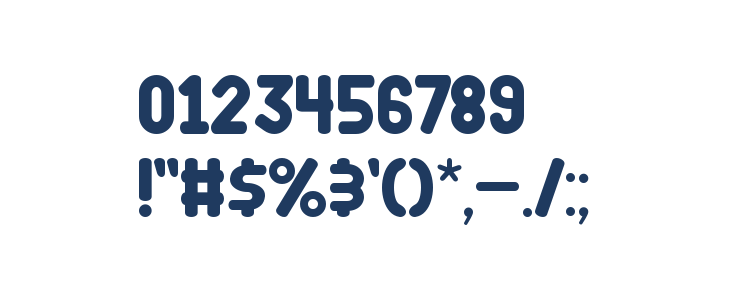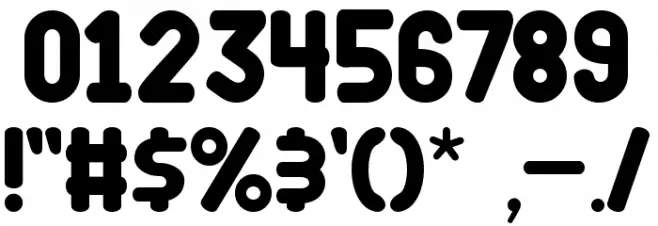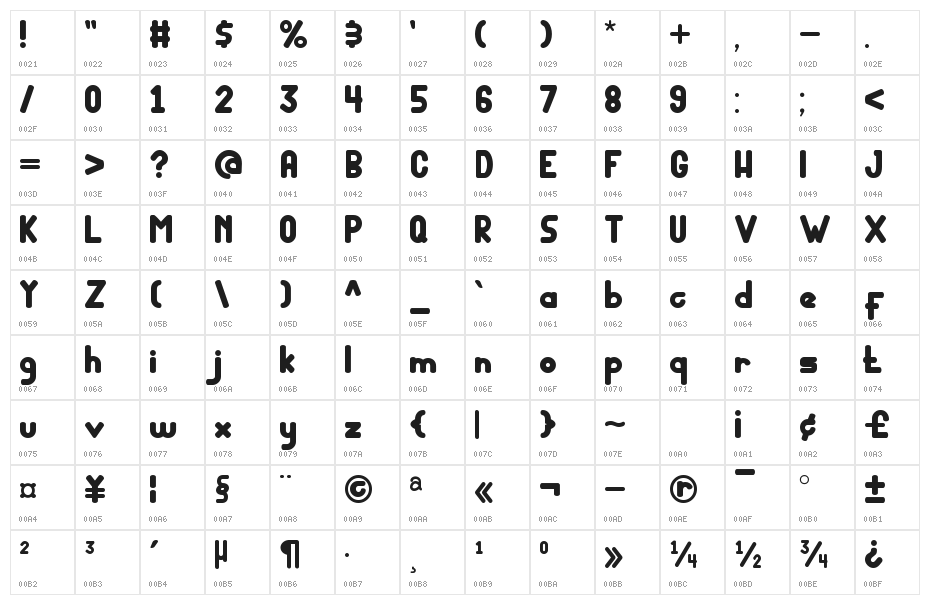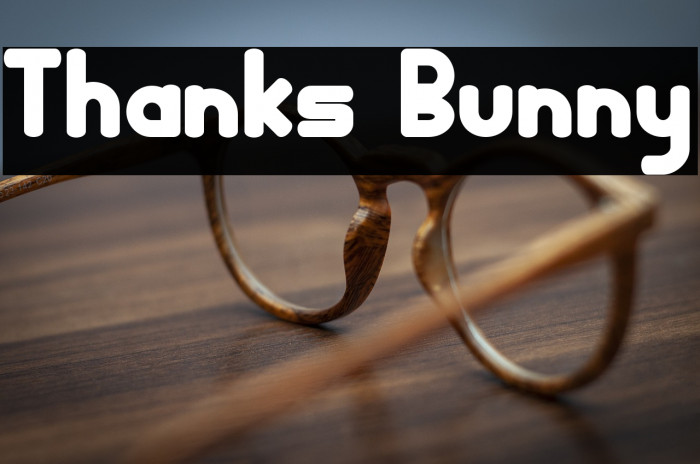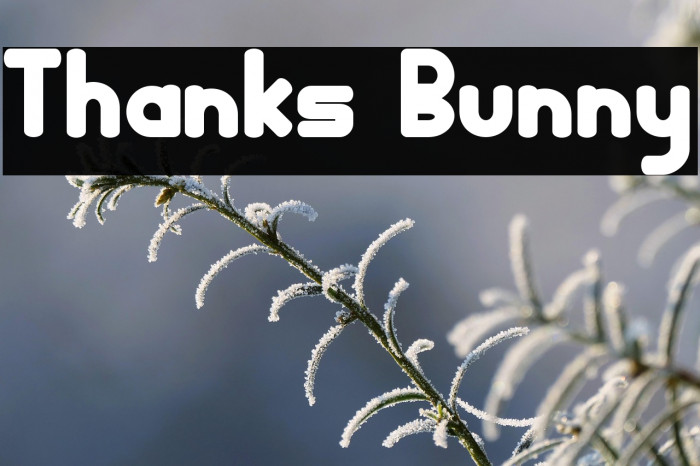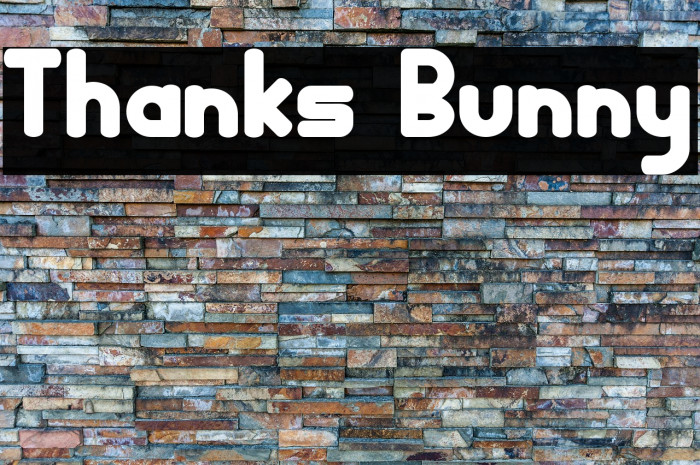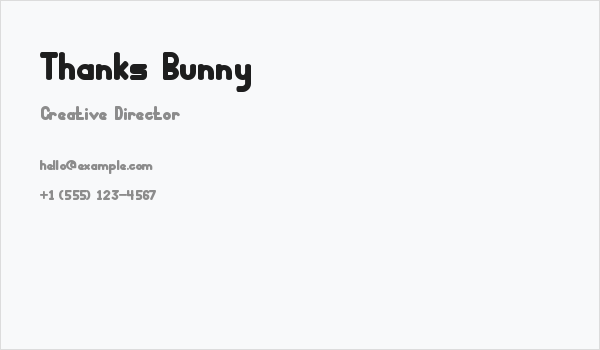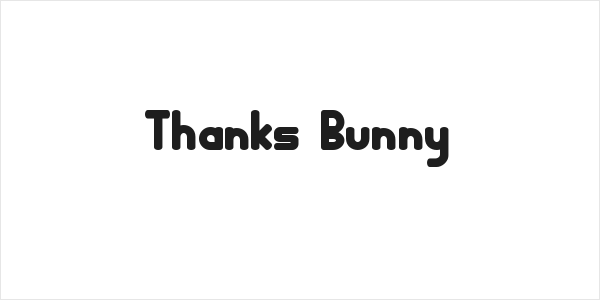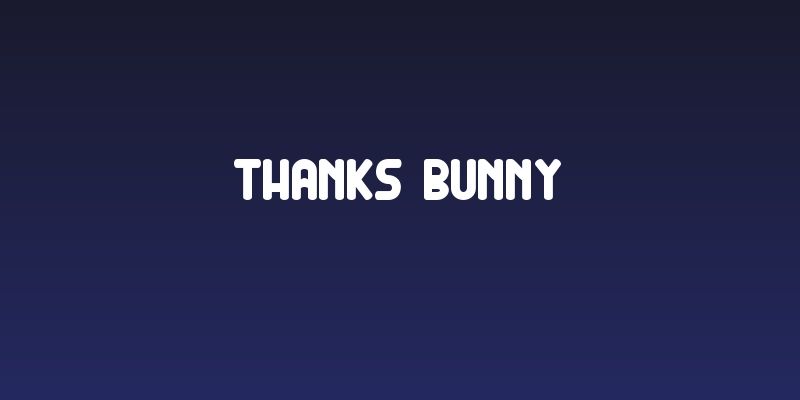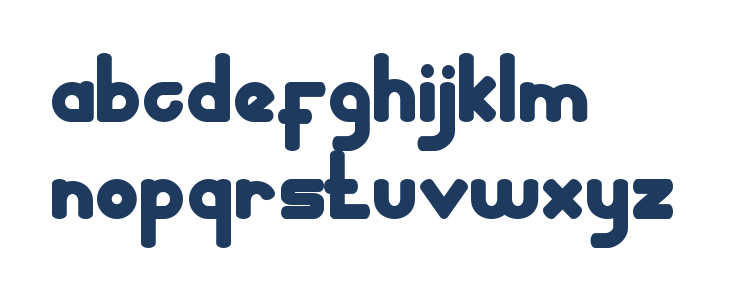
Thanks Bunny Font
Thanks Bunny Description
This font features a bold and playful design with rounded edges and a bubbly appearance. The characters are thick and uniform, giving a sense of friendliness and approachability. The uppercase and lowercase letters maintain a consistent style, with the lowercase letters slightly smaller but equally bold. Numbers and special characters follow the same design principles, ensuring a cohesive look across all glyphs. The font's rounded terminals and uniform stroke width contribute to its modern and informal aesthetic, making it suitable for projects that require a fun and engaging typeface.